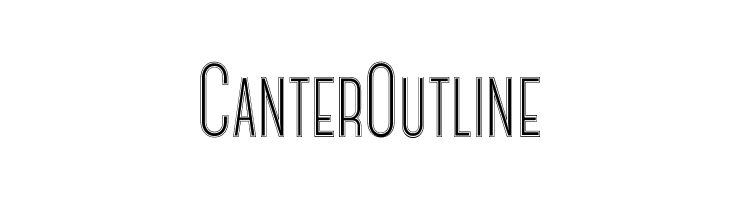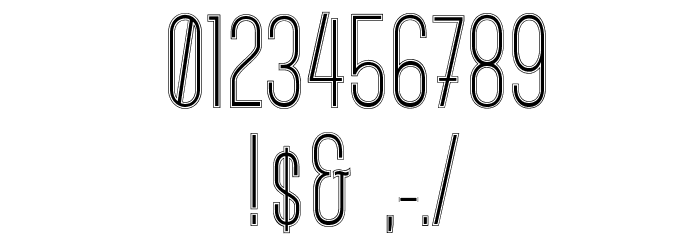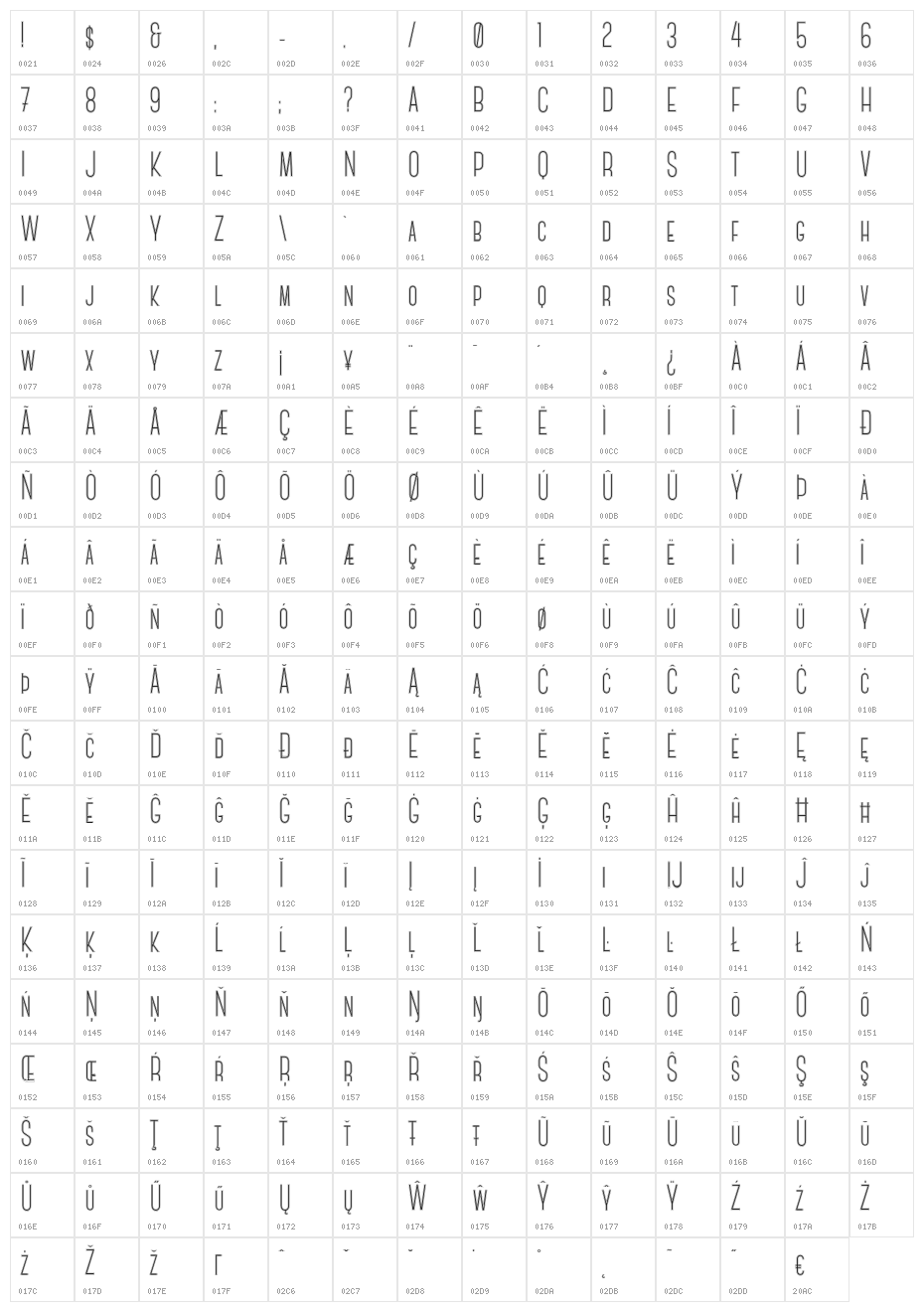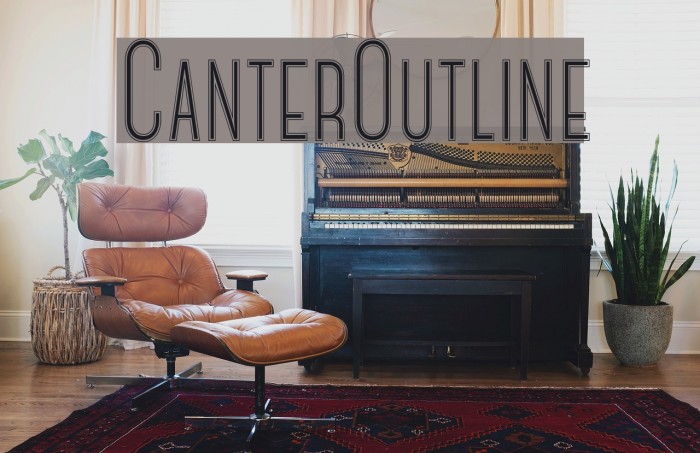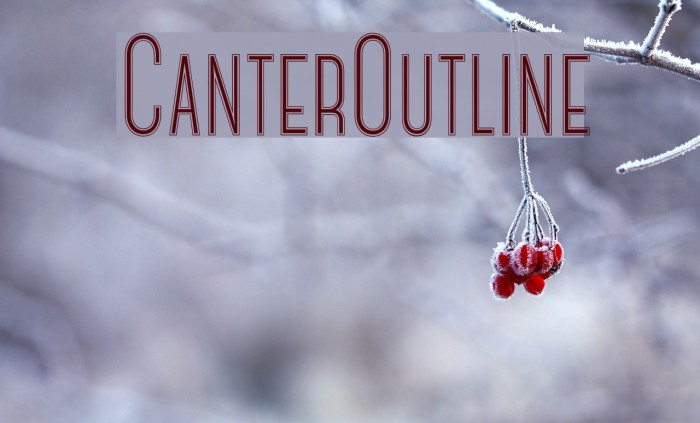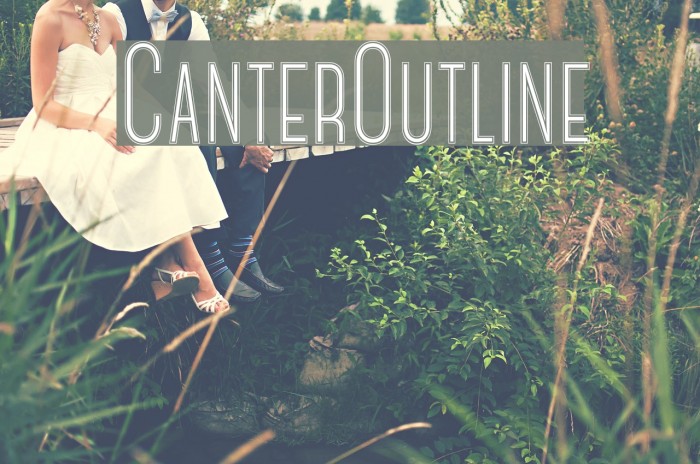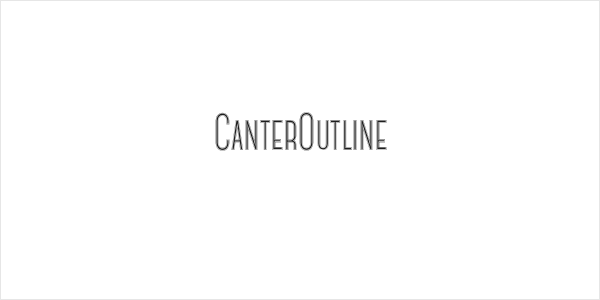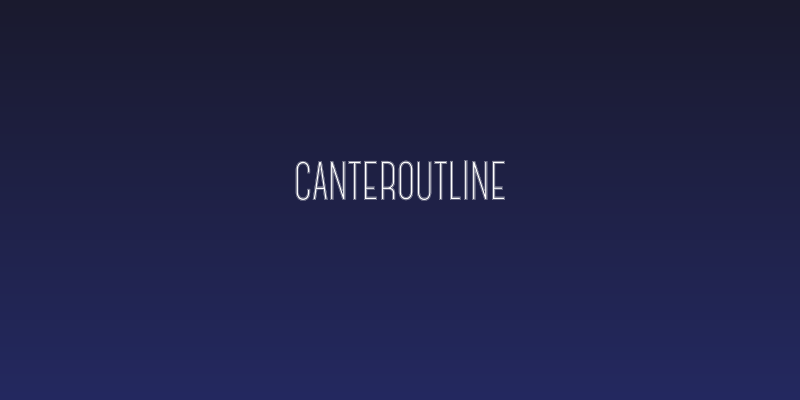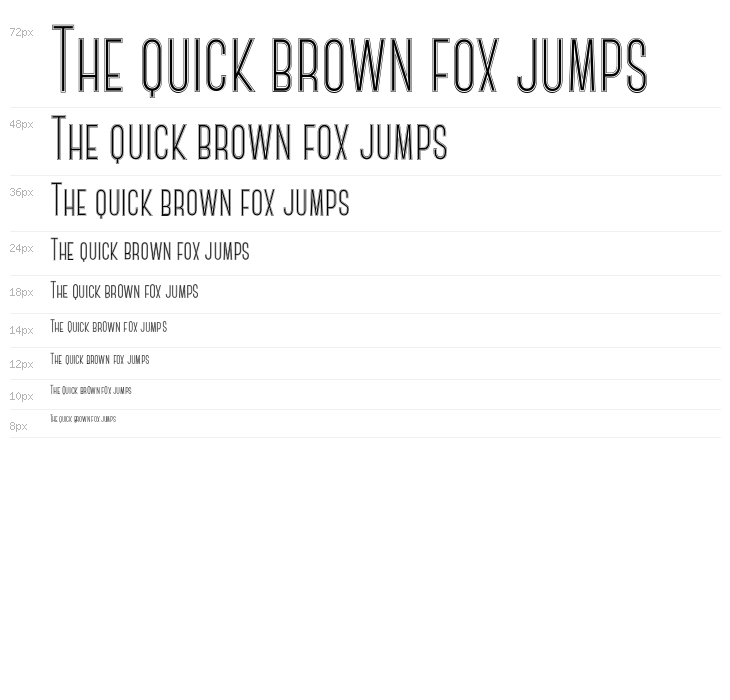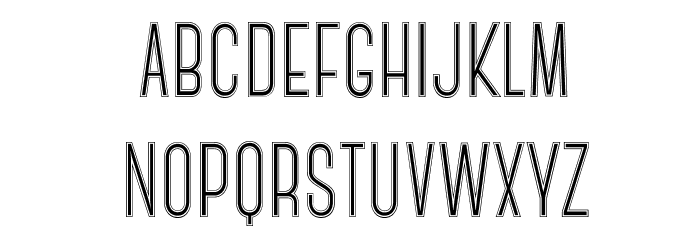
CanterOutline Font
CanterOutline Description
This font features a clean and modern outline style, characterized by its tall, narrow letters and minimalistic design. The uppercase and lowercase letters maintain a consistent height, creating a uniform appearance. The numerals and special characters are designed to complement the alphabet, with a similar outline and spacing. The overall look is sleek and contemporary, making it suitable for a variety of design projects that require a touch of elegance and clarity.